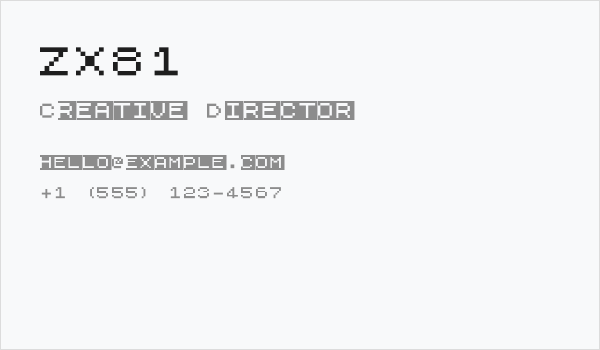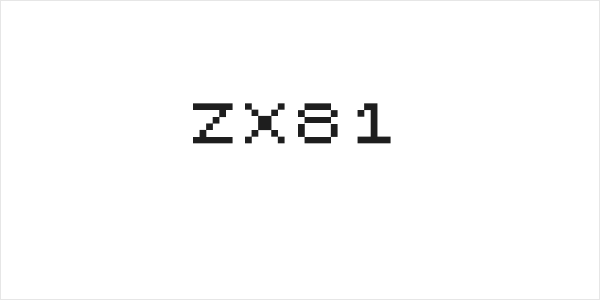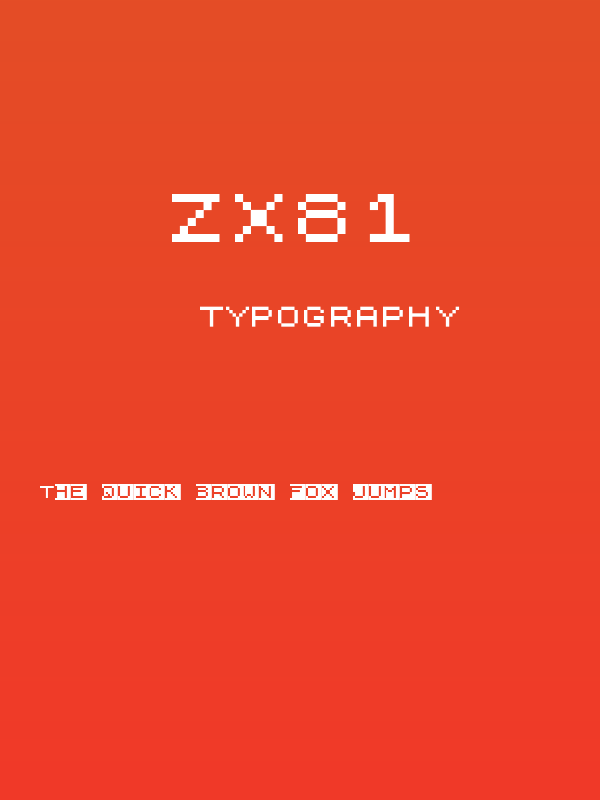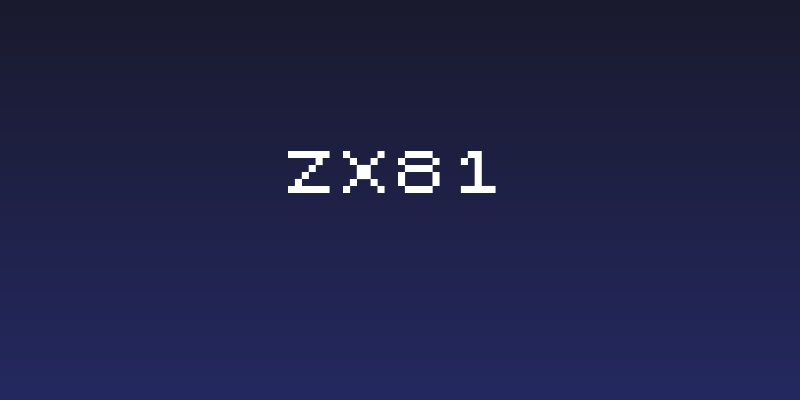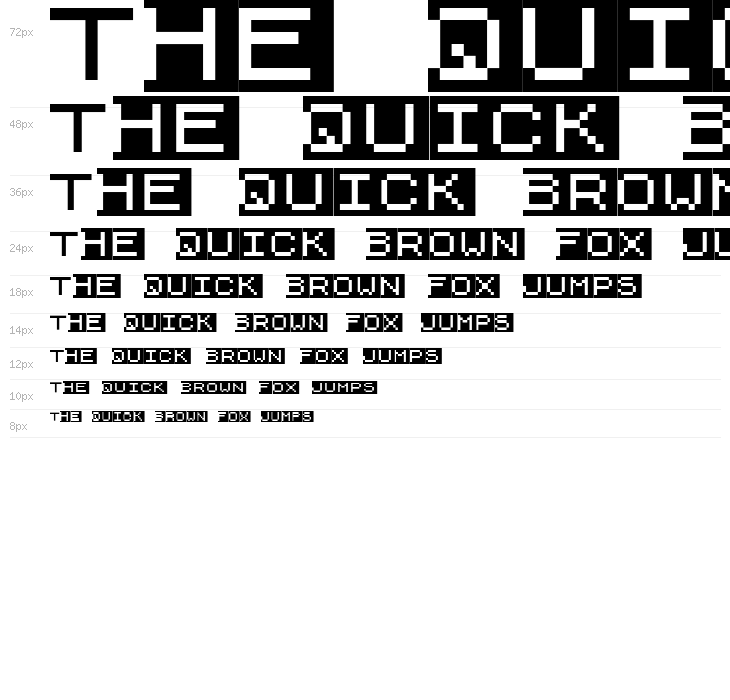
ZX81 Font
ZX81 Description
This font is a pixelated, monospaced typeface reminiscent of early computer and video game graphics. Each character is constructed with a grid-like precision, giving it a distinctly retro, digital appearance. The uniformity in character width and height contributes to its blocky aesthetic, making it highly legible in low-resolution displays. The uppercase and lowercase letters share the same height, emphasizing its monospaced nature. The numerals and special characters maintain the same pixelated style, ensuring consistency across all glyphs. This typeface evokes a sense of nostalgia, ideal for projects aiming to capture the essence of the 1980s computing era.
| Use Case | Logos, digital displays, retro-themed designs. |
| Proposed Projects | Ideal for retro video games, digital art projects, or any design requiring a vintage computer style. |